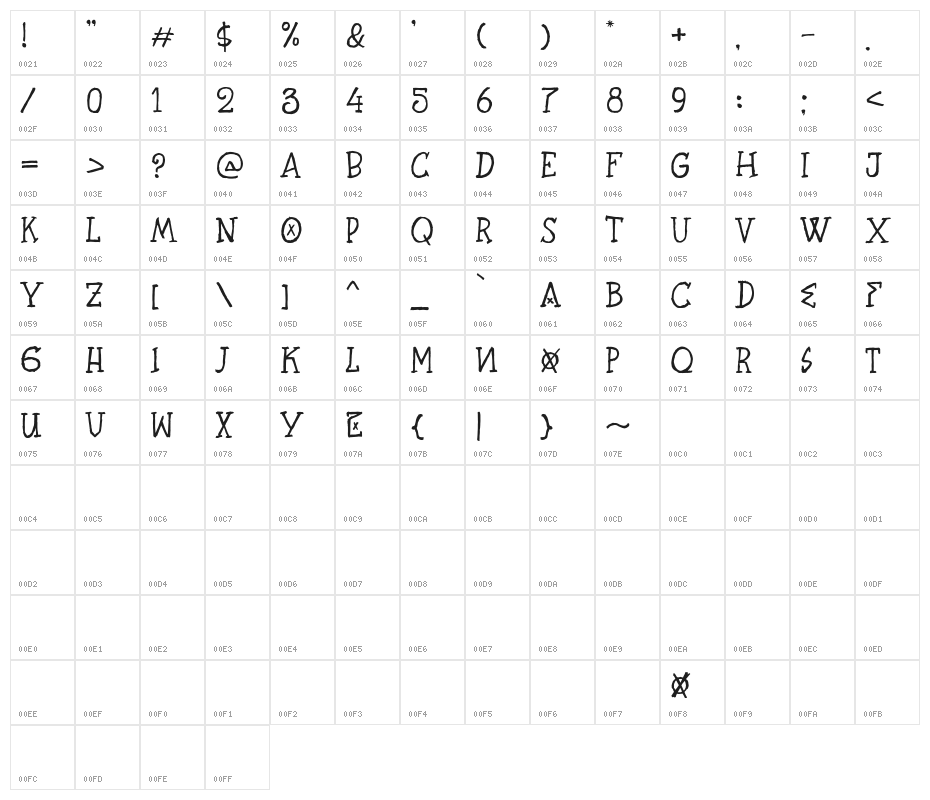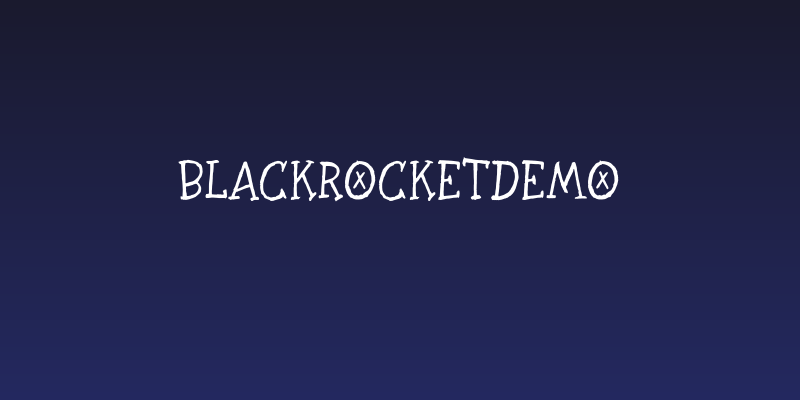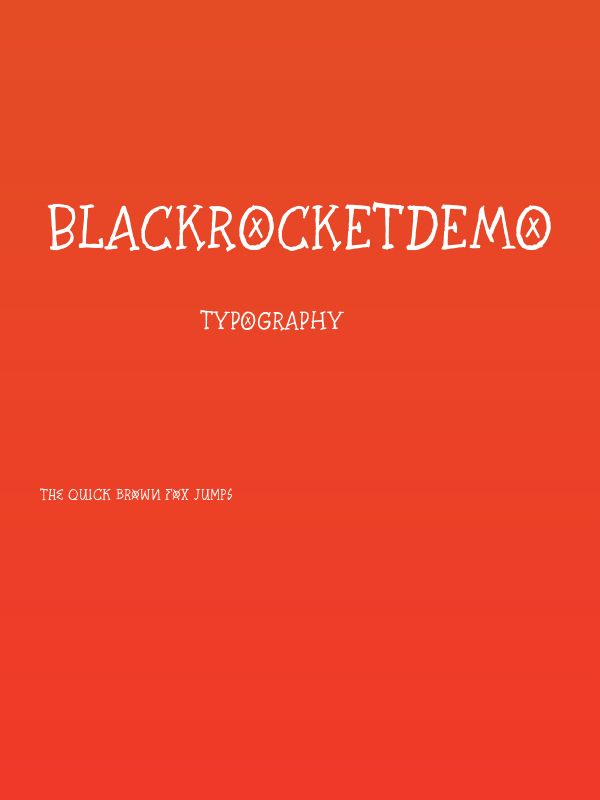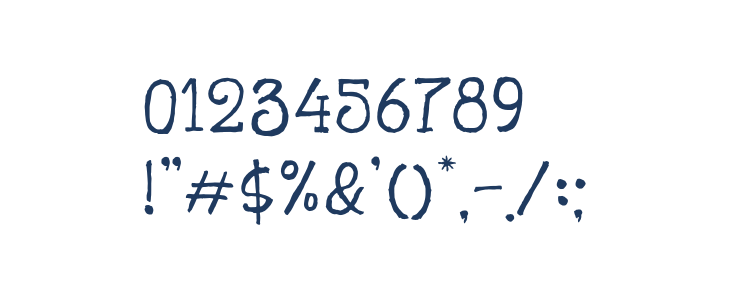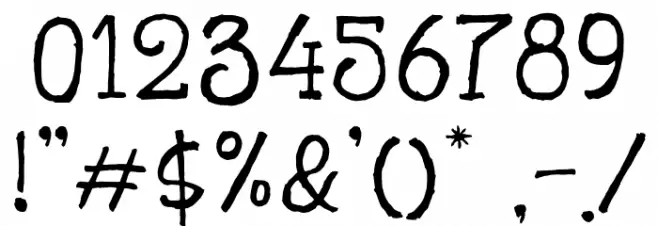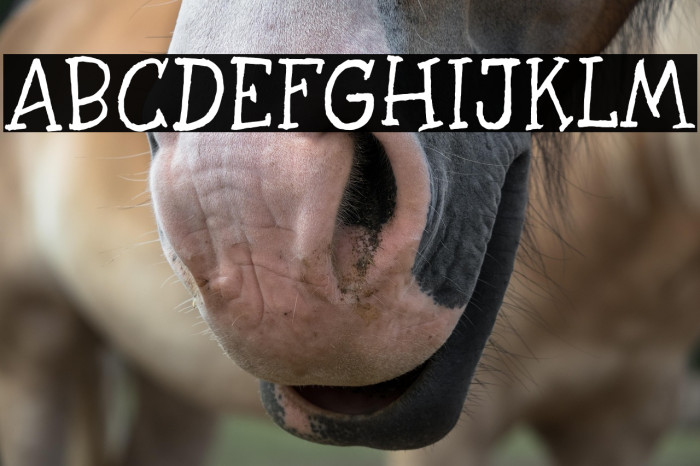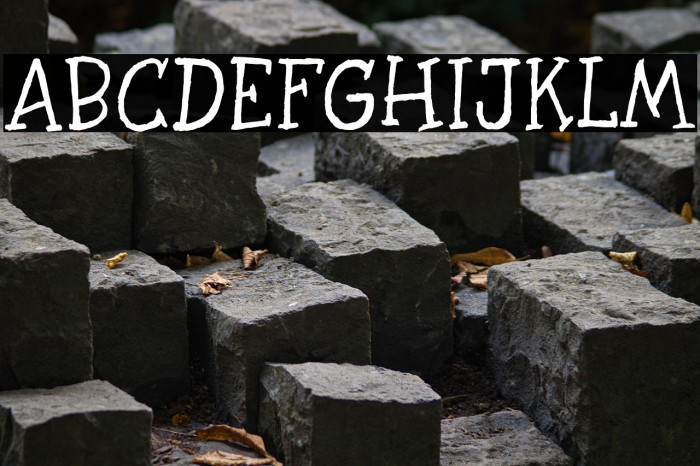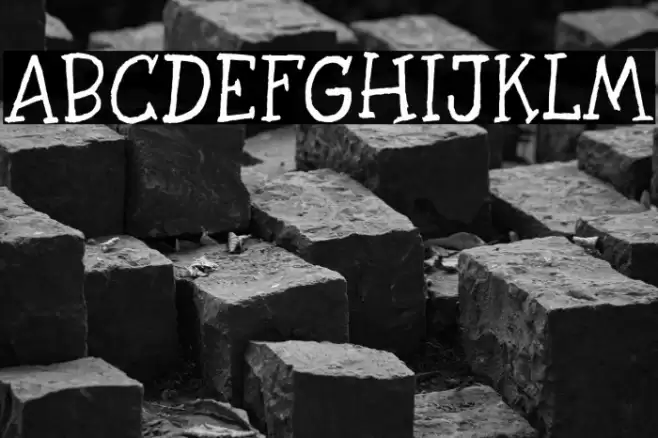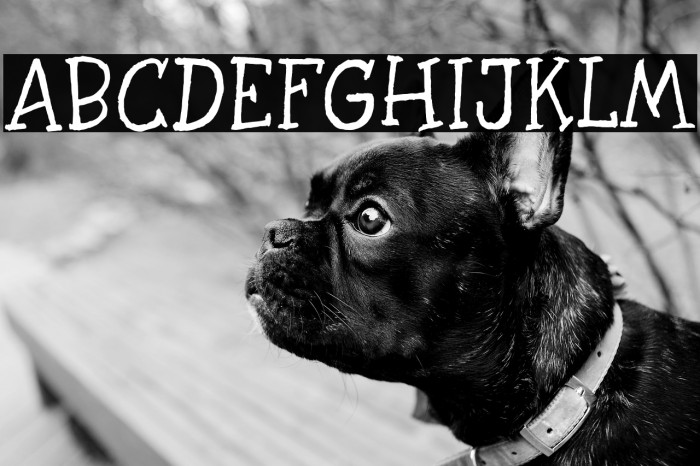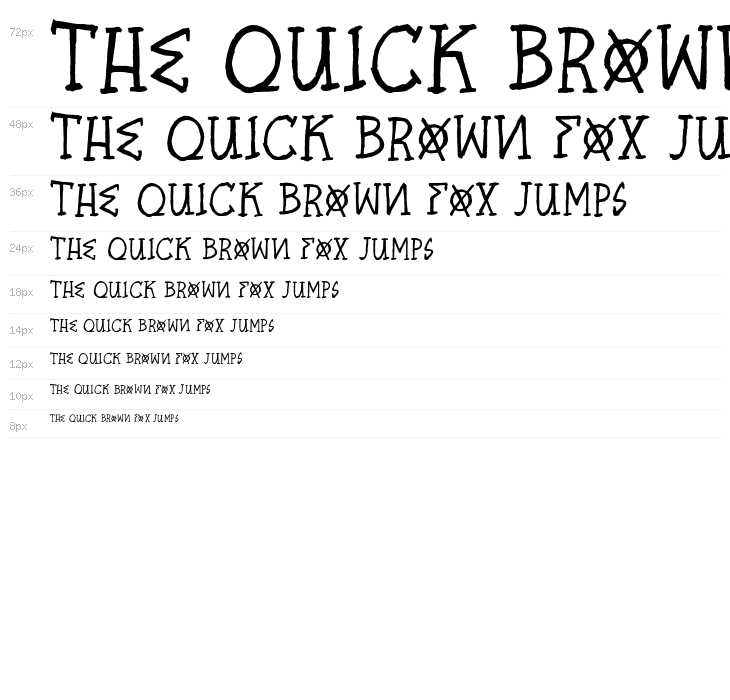
BlackRocketDemo Font
BlackRocketDemo Description
This font exhibits a bold and playful style with a hand-drawn appearance. The characters are slightly irregular, adding a whimsical and artistic touch. The uppercase and lowercase letters maintain a consistent style, with unique embellishments such as stars and circles integrated into some characters. The numbers are bold and maintain the same playful aesthetic. Special characters are creatively designed, enhancing the font's overall quirky and dynamic feel. This font is ideal for projects that require a fun and informal vibe.
| Proposed Projects | Ideal for children's book covers, playful branding, posters, and creative invitations. |